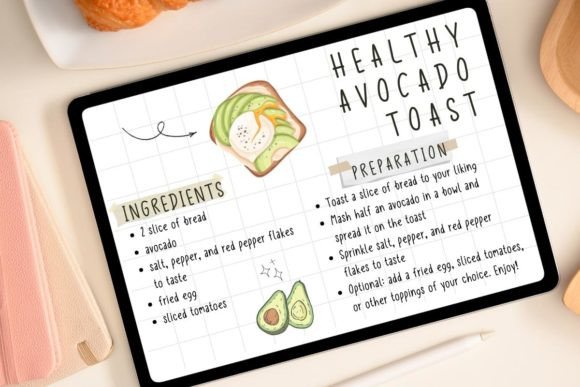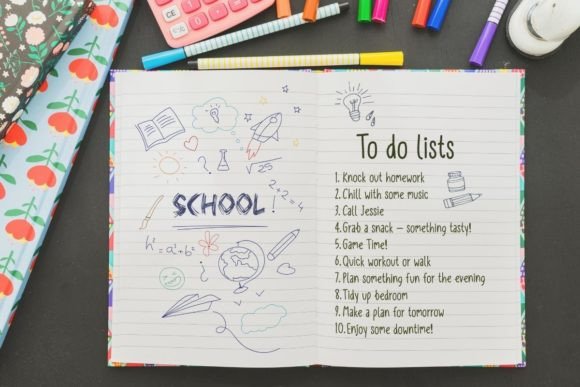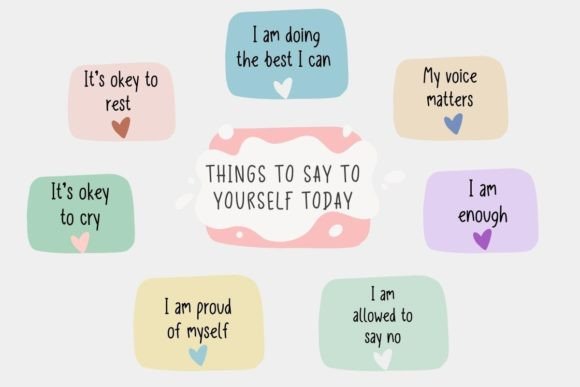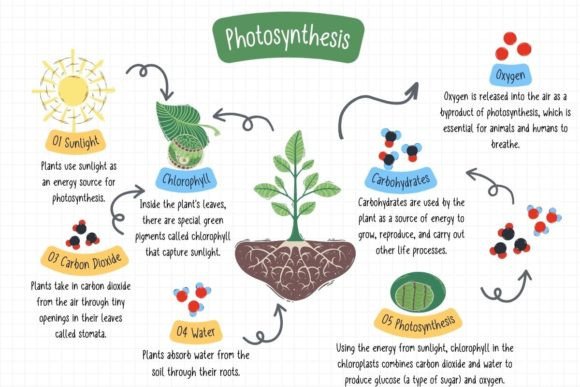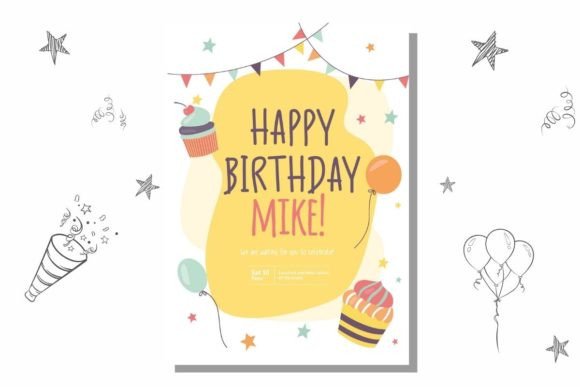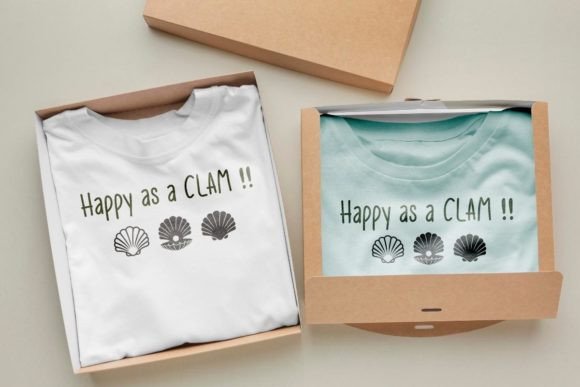
The Perfect Blend of Whimsy and Elegance: Discover the After School Font
There’s something magical about those quiet afternoons spent sketching and brainstorming in your notebook, surrounded by scattered ideas and half-finished projects. It’s in these moments that creativity flows freely, and the possibilities seem endless. And what better way to bring those ideas to life than with the perfect font?
Enter the After School Font, a timeless and lovely handwritten font that’s perfect for adding a touch of whimsy and elegance to your designs. With its unique and beautiful touch, this font is ideal for creating eye-catching logos, branding, and quotes that truly come alive. Whether you’re a seasoned designer or just starting out, the After School Font is a valuable addition to your toolkit, offering a world of creative possibilities at your fingertips.
After School Font Key Features
- Unique Characteristics: After School Font features a unique, handwritten style with a mix of casual and elegant elements, making it perfect for creative projects and designs.
After School Font Review
After using the After School Font, I must say it’s a unique and charming addition to any design project. ✨ The font’s playful, handwritten feel makes it perfect for creating a sense of whimsy and youthfulness. It’s ideal for projects targeting a younger audience or those with a casual, laid-back vibe.
The font is highly customizable, allowing you to adjust the weight, spacing, and style to suit your specific needs. This flexibility is a major plus, making it a great choice for designers who value versatility. ✨ Additionally, the font’s high legibility ensures that your text remains easy to read, even at smaller font sizes.
- Unique, playful design
- Excellent legibility
- Perfect for targeting a younger audience
- May not be suitable for formal or professional projects
- Can be overwhelming if used in excess
- Some characters may appear slightly irregular
Overall, I’d give the After School Font 4 out of 5 stars. While it excels in certain areas, it may not be the best fit for every project. Nevertheless, it’s a solid addition to any designer’s toolkit, and I’d definitely consider using it again in the future.
The After School Font is perfect for creating playful and educational materials, such as:
- School projects and presentations
- Teaching resources and worksheets
- Children’s books and storybooks
For the best results, use the After School Font in conjunction with bright and colorful graphics and illustrations.